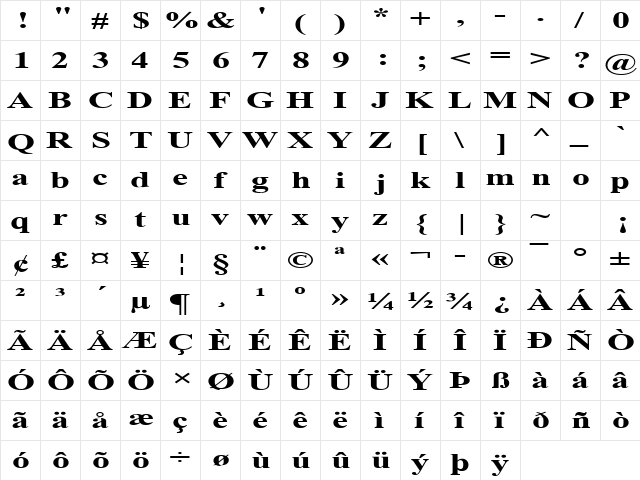
Woman Of The World 17 Bold
Design Context for Woman Of The World 17 Typeface
Woman Of The World 17 offers clean, dependable letterforms without strong stylistic allegiance, making it a practical choice for designers who need flexibility. The heavy weight commands attention and anchors typographic hierarchies.